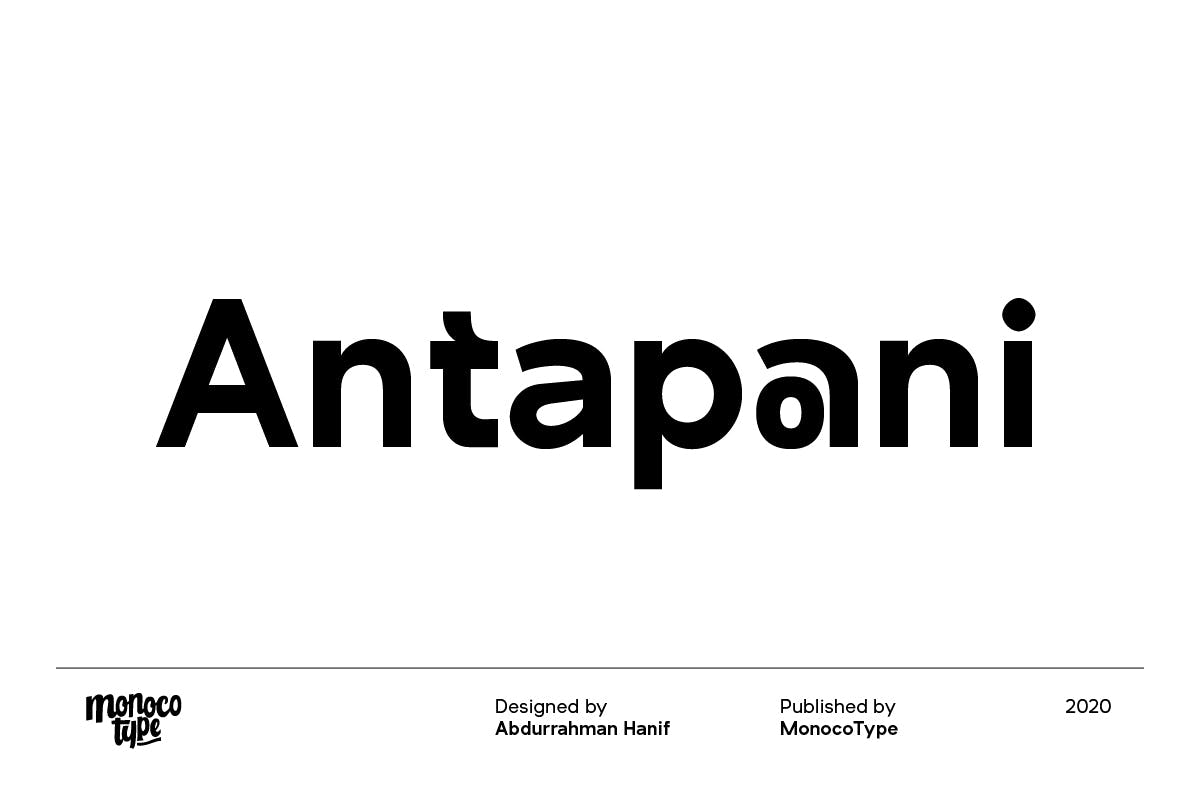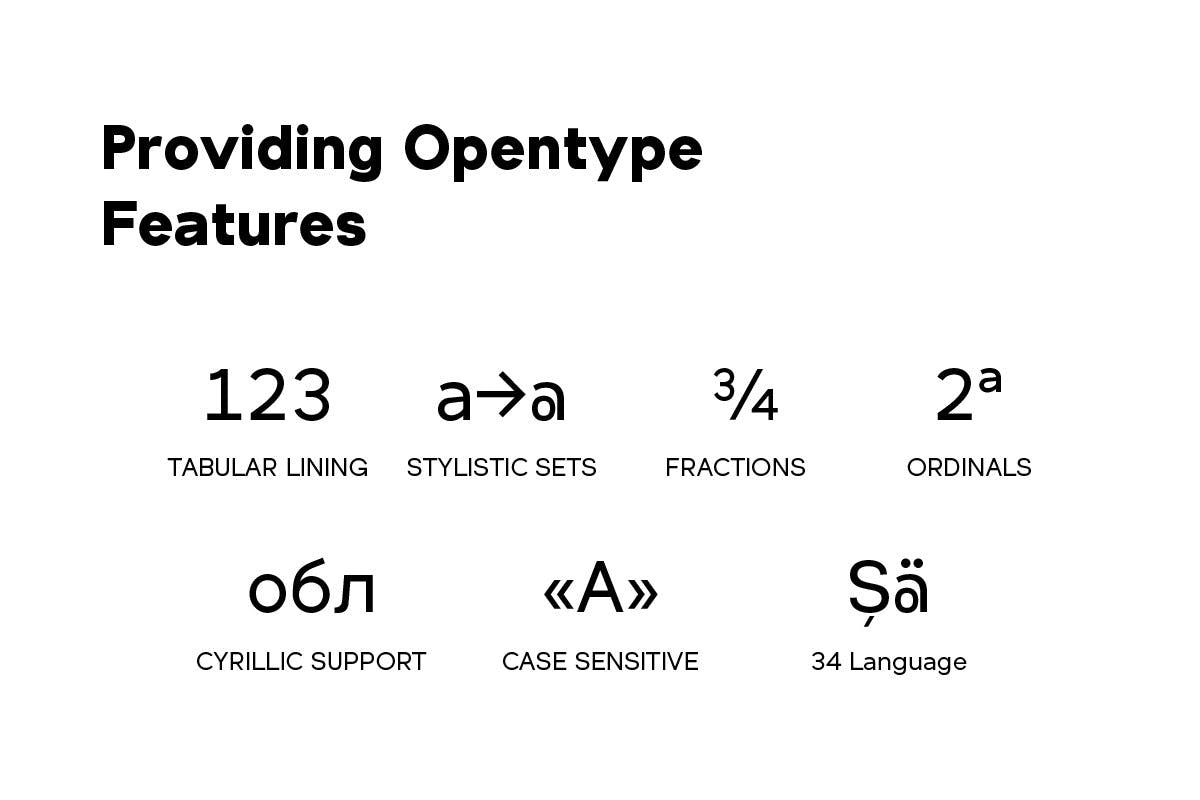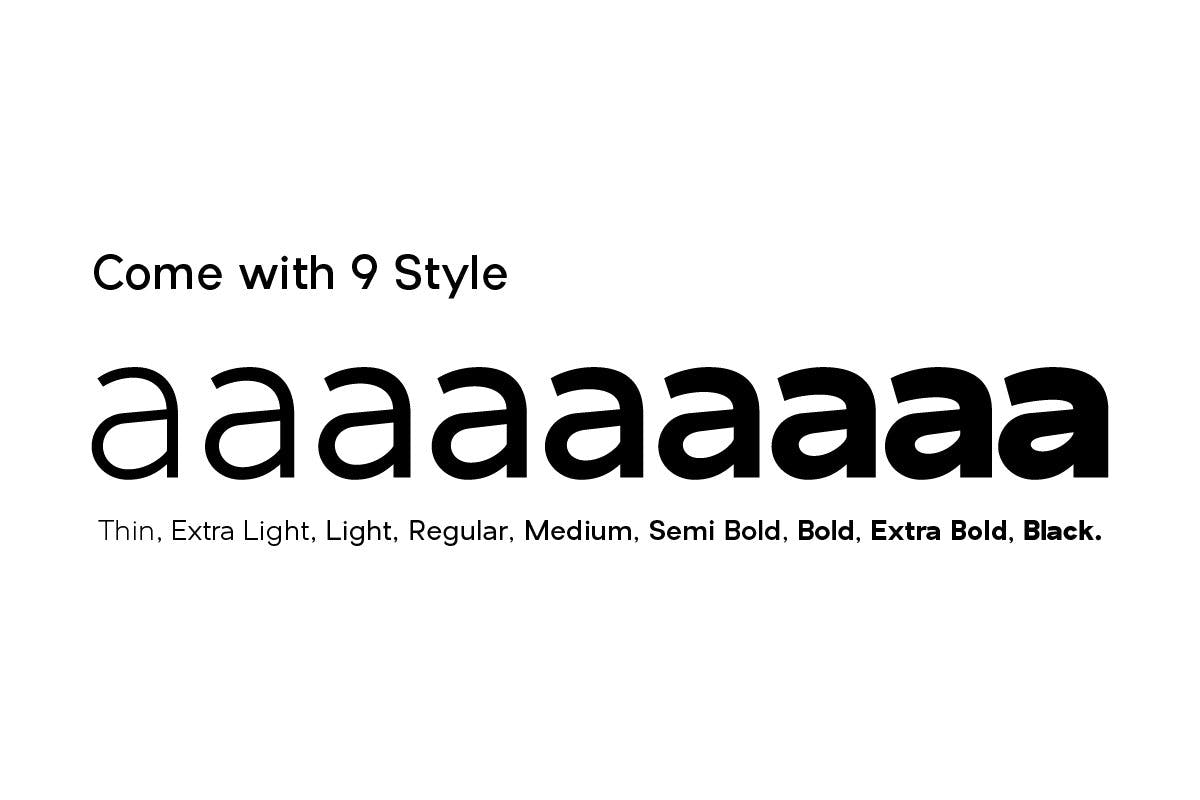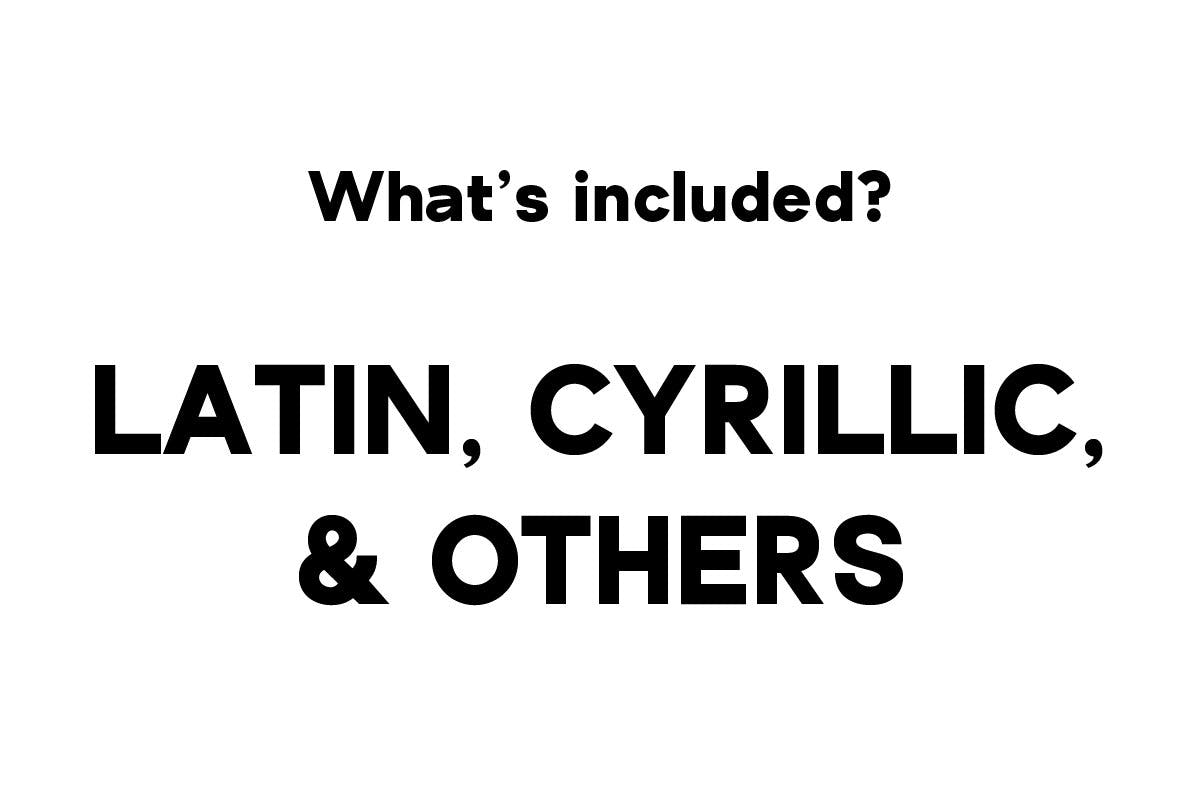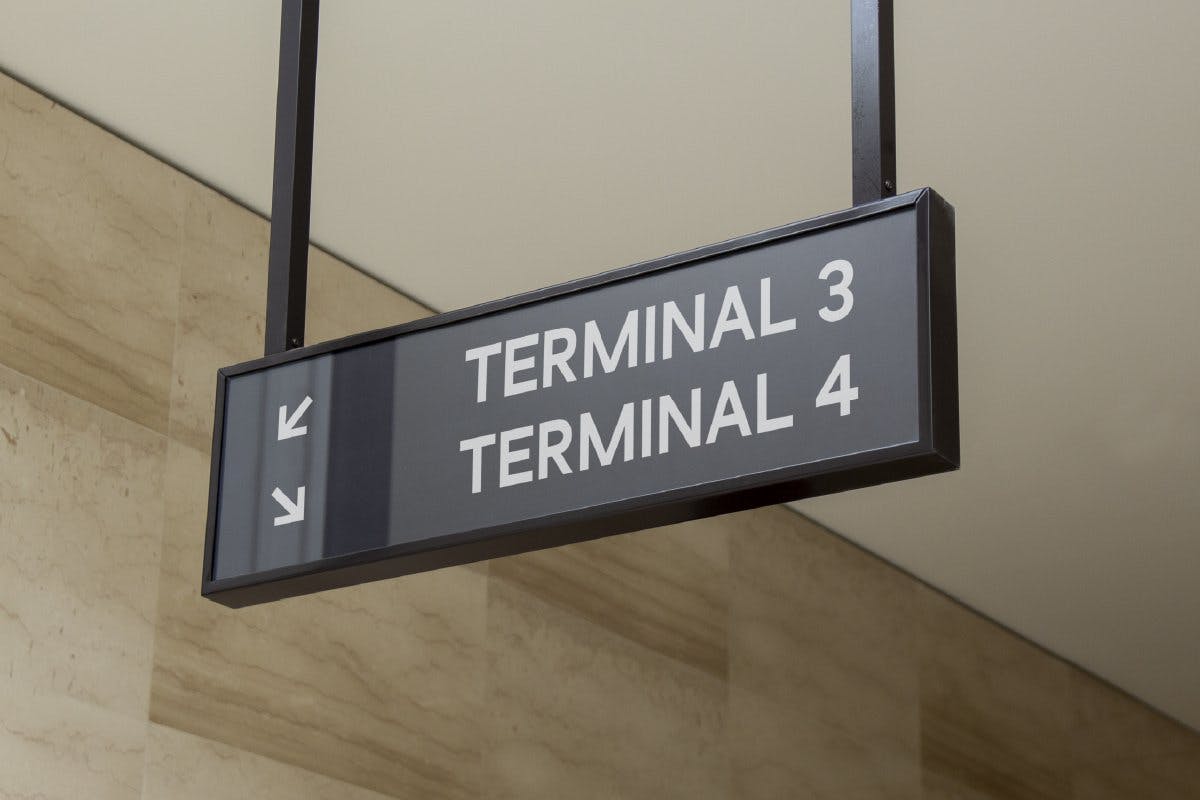
Free Antapani Sans Serif Font
Free Antapani Sans Serif Font is a Grotesk sans style with some stylistic style to some letter. Designed for readability but can also function as a display text. Come with 9 styles from Thin to Extra Bold so you can choose which style you want. Coming with an OTF format file that you can install on your devices. Each weight includes extended language support (+ Cyrillic), fractions, ligatures, and more. Perfectly suited for graphic design and any display use. It could easily work for web, signage, corporate as well as for editorial design. However, you will get one style for this free font which is extra bold with 100% free. But, if you want to get more style, go purchasing the premium version now.